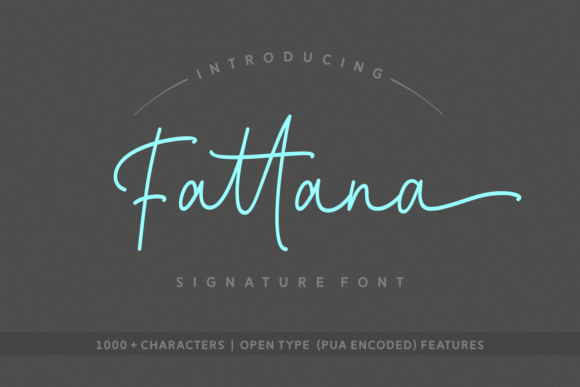
Fattana Script Font
Dear Font Lovers! If you are looking for a signature font then this is it. Introducing Fattana Font. Fattana is a wonderfully stylish signature font, perfect for use in headlines and editorial purposes. This font is monoline and thin, giving your designs a sleek appeal.